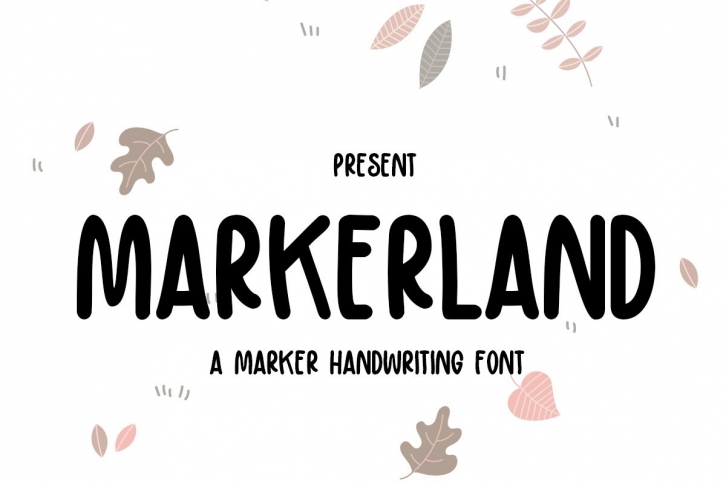
Markerland is a great font that was designed by baldam. Imagine the amount of combinations you can create using this font! The archive is 9.63 MB and it was released on March 30, 2021. Markerland looks beautiful on wedding invitations, greeting cards, logos, posters, labels, t-shirt designs, logos, business cards and is perfect for use in ink or watercolor works, fashion, magazines, packaging and food menus, children's books and more!